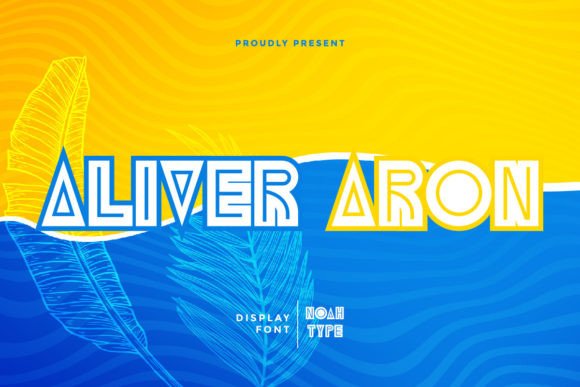
I still remember the frustration of working on a project, hours spent crafting the perfect design, only to be held back by one thing: the font. It was a client request for a comic book-style poster, and I was determined to deliver. But, as I scrolled through font after font, I just couldn’t find the right fit. That was until I stumbled upon **Aliver Aron Font**.
This futuristic display font has been a game-changer for me, and I’m excited to share my experience with you. With its unique style in each letter, inspired by ancient letters and comic lettering style, Aliver Aron Font is sure to elevate your designs.
First Impressions: A Review of Aliver Aron Font
• ✨ Unique Style: Each letter has its own distinct personality, making it perfect for creative projects.
• ✅ Readability: Despite its unique style, the font remains easy to read, even at smaller sizes.
• 💡 Versatility: Suitable for a wide range of industries, from authors and publishers to game developers and sportswear brands.
While Aliver Aron Font is an excellent choice, there are a few things to keep in mind:
• ⚠️ Limited Use in Body Text: Due to its unique style, Aliver Aron Font may not be the best choice for body text. It’s best used for headings or titles.
• 🤔 Kerning Issues: As with any font, some users may experience kerning issues. Be sure to adjust as needed.
Exploring Alternatives: Similar Fonts to Aliver Aron Font
• Comic Sans: A classic comic book-style font with a playful personality.
• Impact: A bold, futuristic font perfect for headings and titles.
• Orbitron: A sci-fi inspired font with a strong, technological feel.
• Rock Salt: A fun, hand-drawn font with a casual, friendly vibe.
The Story Behind Aliver Aron Font
While the true story behind Aliver Aron Font may be unknown, it’s easy to imagine a designer inspired by the fusion of ancient letters and modern comic book styles. Perhaps the designer was a comic book enthusiast who wanted to create a font that captured the essence of their favorite characters. Whatever the inspiration, Aliver Aron Font is a unique and captivating addition to the world of typography.
Q: What is Aliver Aron Font best used for?
A: Aliver Aron Font is ideal for creative projects, such as comic books, posters, and titles, where a unique and attention-grabbing font is desired.
Q: Is Aliver Aron Font easy to read?
A: Yes, despite its unique style, Aliver Aron Font remains easy to read, even at smaller sizes.
Q: Is Aliver Aron Font available in different weights or styles?
A: While the exact variations of Aliver Aron Font are unknown, it’s possible to find similar fonts or alternatives with varying weights or styles.